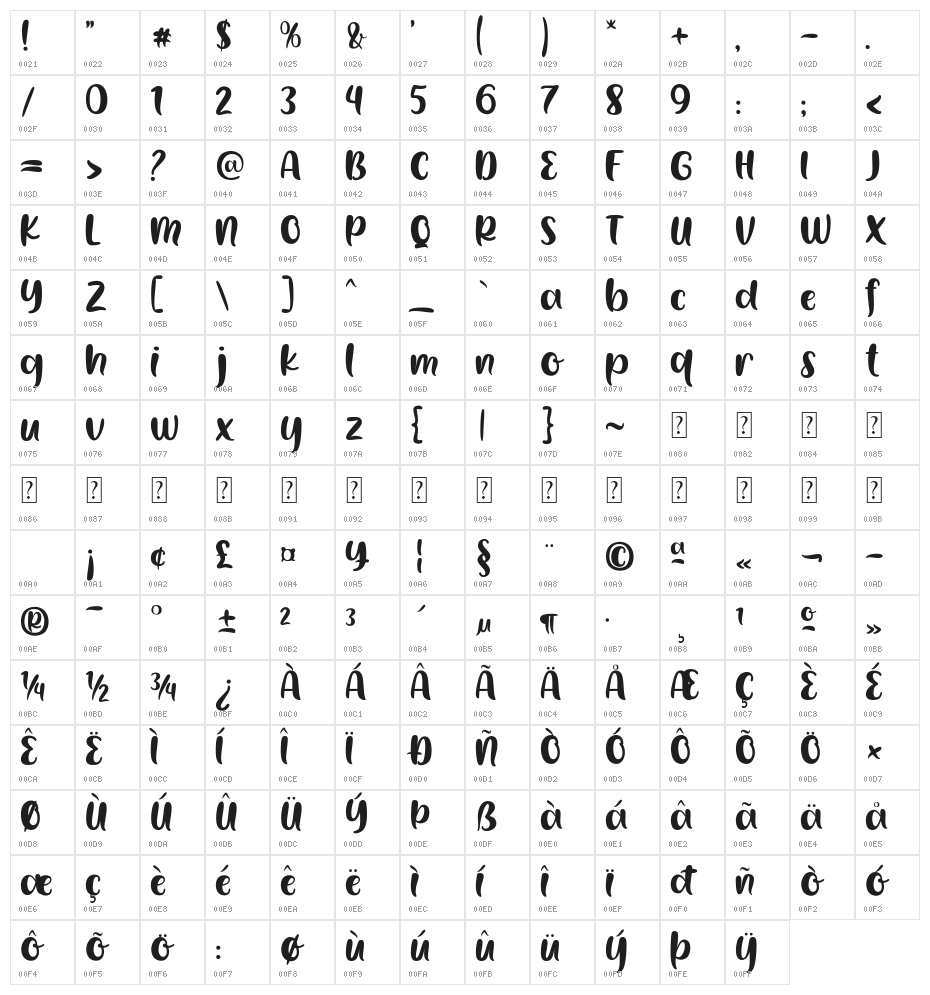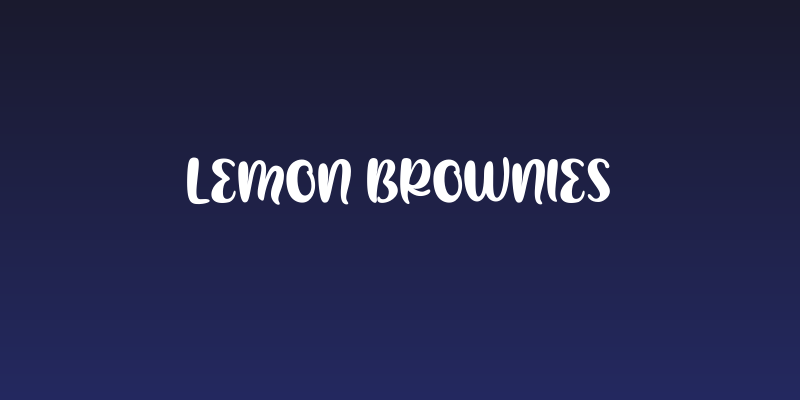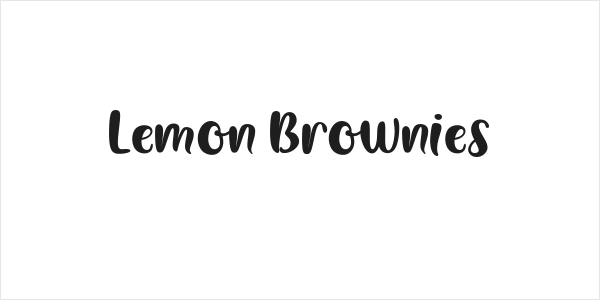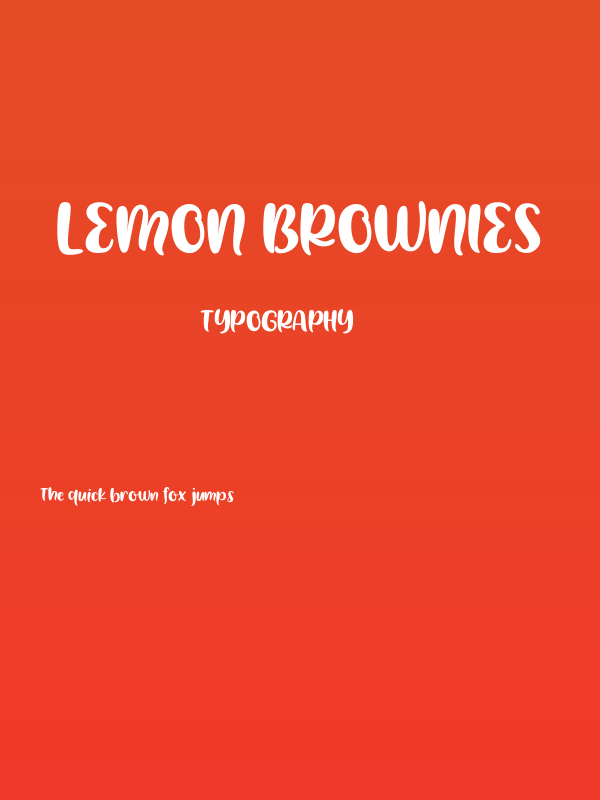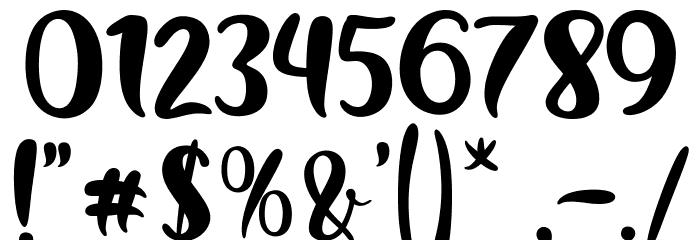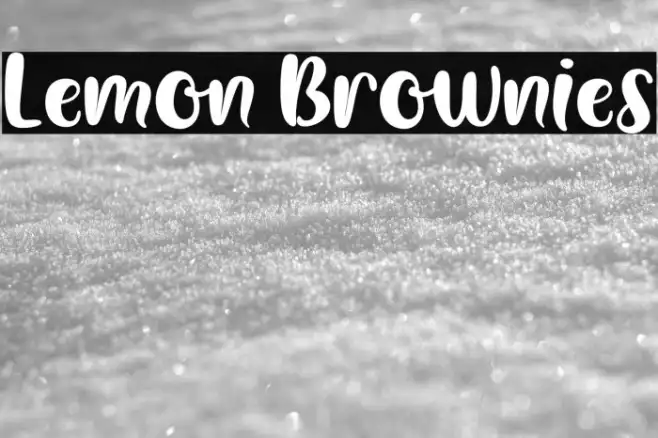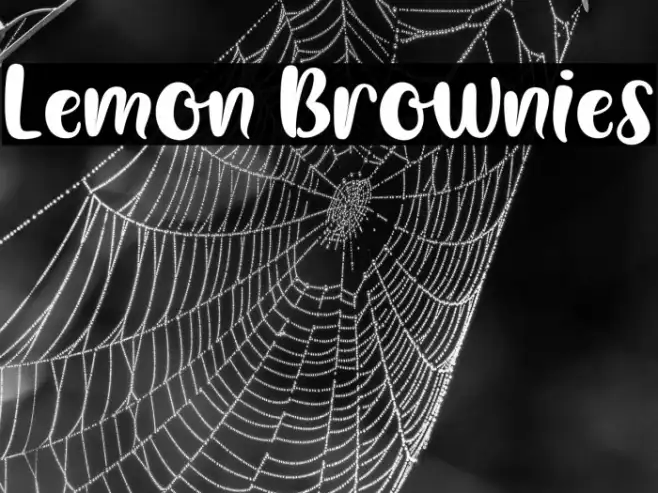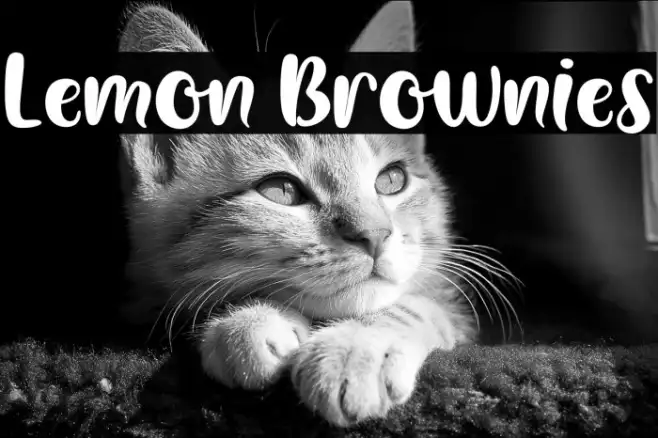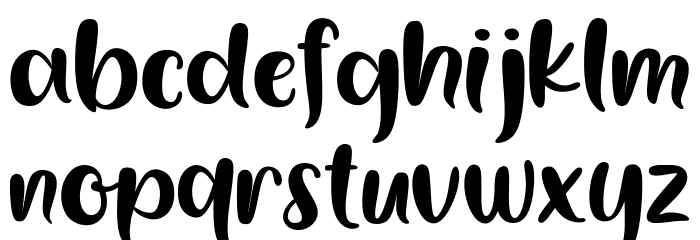
Lemon Brownies Font
Lemon Brownies Description
This font features a playful and bold script style, characterized by its smooth, flowing curves and rounded edges. The uppercase and lowercase letters maintain a consistent thickness, giving it a cohesive look. The numbers and special characters are designed with the same playful flair, making them easily readable yet stylish. The font's overall appearance is lively and energetic, making it suitable for projects that require a touch of fun and creativity. Its bold strokes and rounded forms give it a friendly and approachable feel, perfect for engaging audiences.